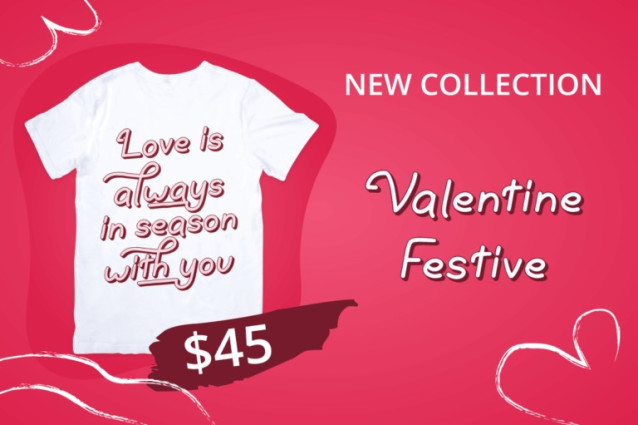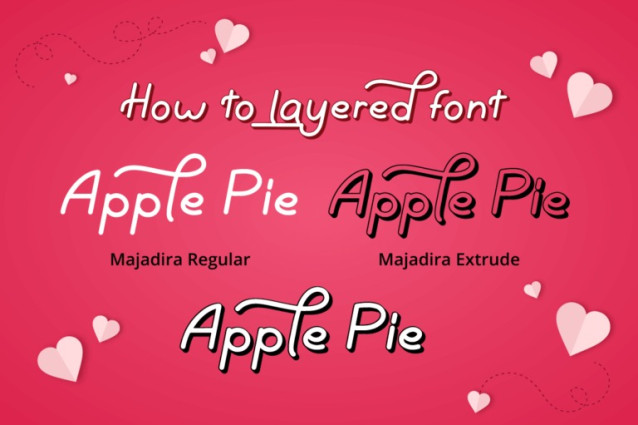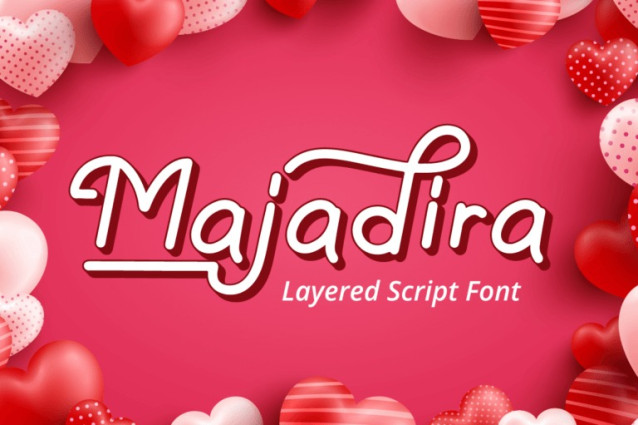
Majadira Script Font
Majadira Script Font – a beautiful digital font that comes in two versions, Regular and Extrude. When combined, these two fonts give a 3D-like appearance to your designs.
With its stylistic alternates, Majadira Font is visually appealing and perfect for wedding designs and Valentine’s Day themes.
Create stunning invitations, posters, and banners with this elegant font. Whether you’re designing for a romantic event or just looking for a stylish touch, Majadira Font is the perfect choice.